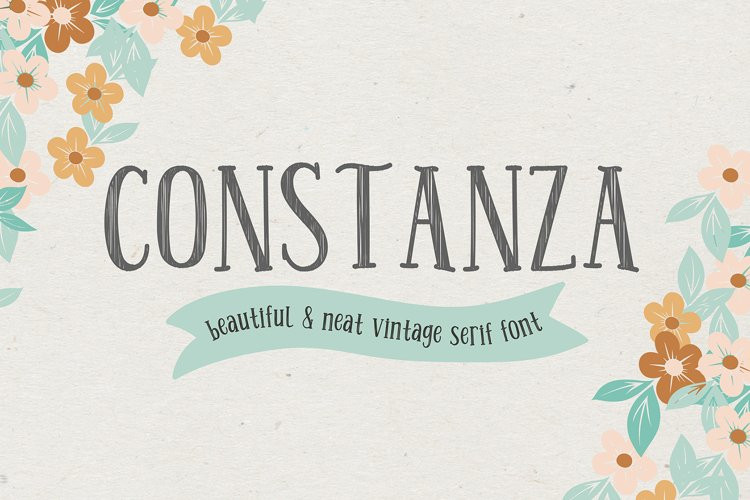
Constanza Font
Constanza FontSay hello to the freshly baked beautiful and neat vintage serif font! Amazing handwritten font Constanza.
The unusual, freshly baked font is perfect for greetings, illustrations, children’s books, delicious packaging, labels, logos and much more.
This beautiful neat retro font with imperfect ink edges and slightly sloppy shading is inspired by nature. Eco-friendly fashion takes into account the health of consumers, the health of the planet. The font “Constanza” is perfectly combined with any stylized graphics, watercolors, and also looks great on its own within the framework of a minimalist design. Play with letters to get different effects.